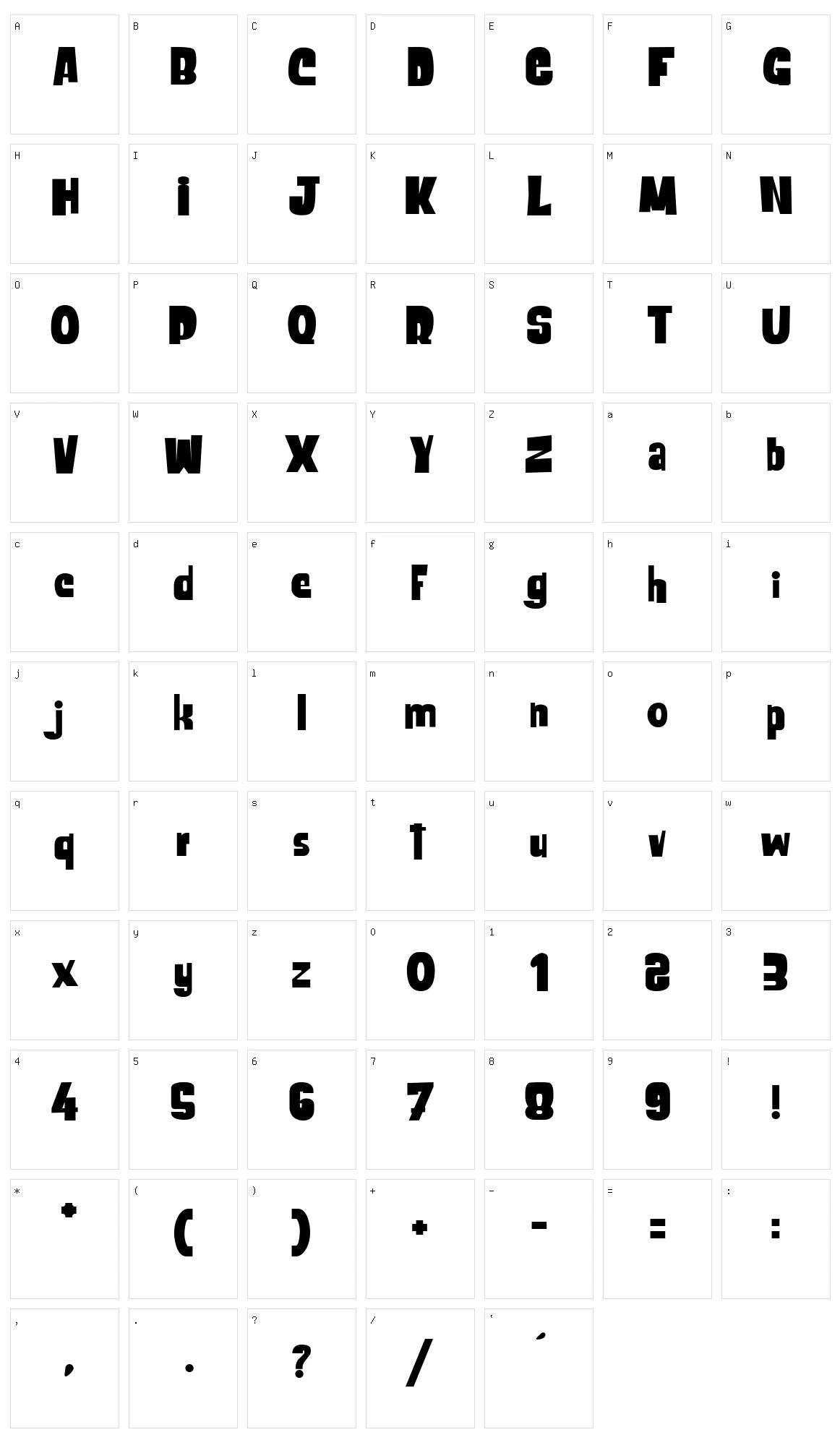
The free font Le Cachalot du Grand Nord is carefully designed by Maelle.K | Thomas Boucherie, showcasing a thoughtful balance of creativity and usability and falls under the Cartoon font style. When you download the ZIP file, it contains only 16.16 KB of font files, making it lightweight and quick to download. Please review the license details below to understand permitted usage and distribution rights. If license information is not available, we recommend using this font for personal projects only or contacting the author directly for commercial usage permissions.